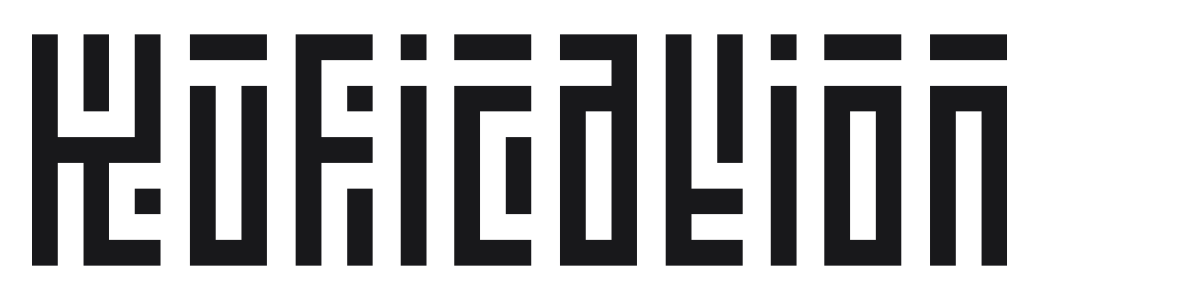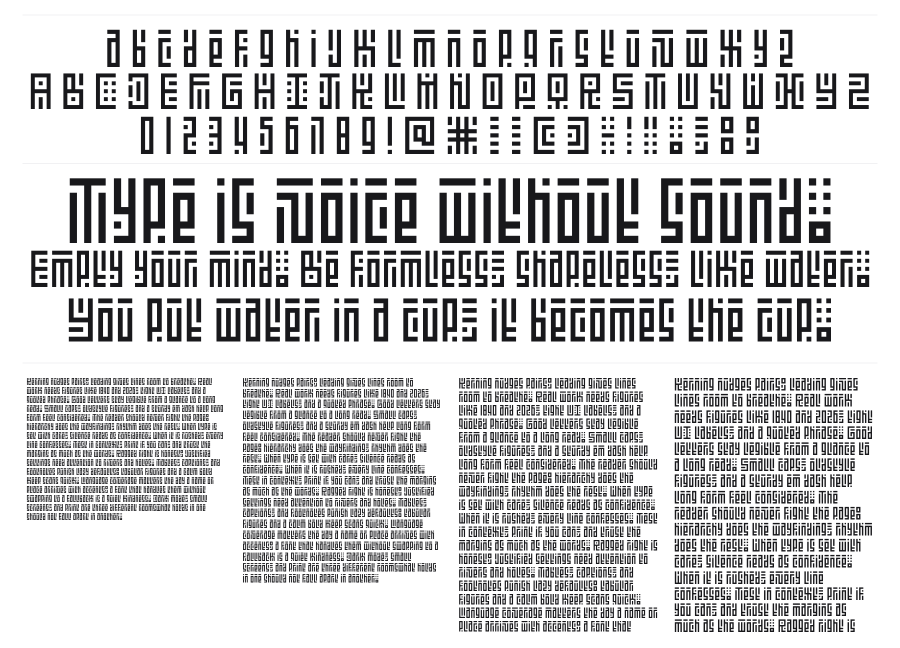
Kufication
Kufication is a Latin display typeface that translates the strict geometric grid of Kufic Arabic script into Western characters. Every letter is assembled from square modules and uniform strokes, giving text the dense, interlocking rhythm of Islamic tilework. The result is something that reads as Latin but feels deeply rooted in a different visual tradition.